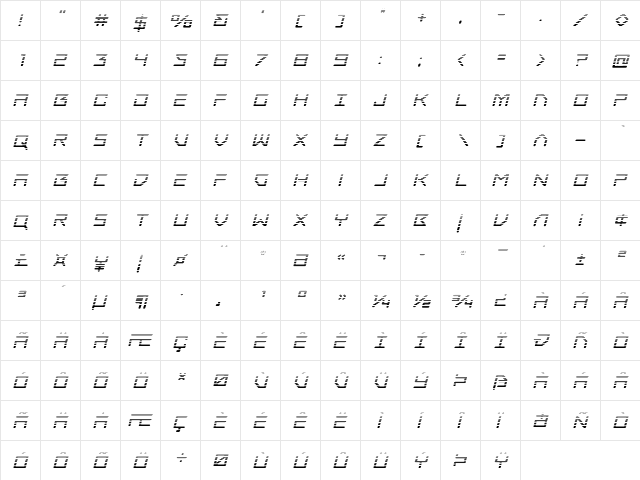
Tempest Apache Gradient Italic Italic
Design Context for Tempest Apache Gradient Italic Typeface
Tempest Apache Gradient Italic is a composed and adaptable typeface that performs quietly and consistently across a wide range of design contexts. The slanted form adds forward momentum and visual energy.
Pro Tip: Use Tempest Apache Gradient Italic for emphasis, pull quotes, and subheadings where its slanted energy can add rhythm to the layout.